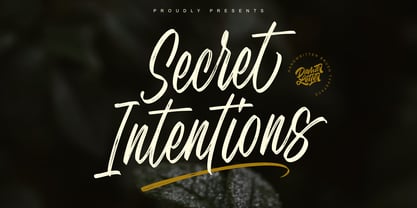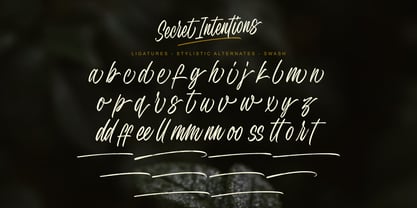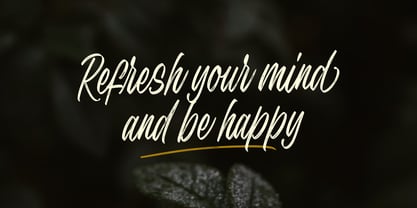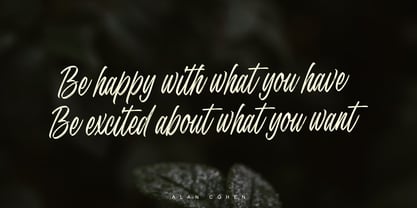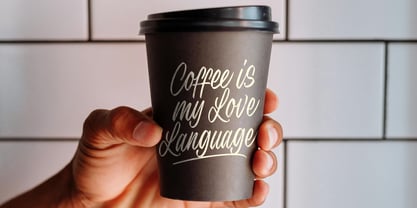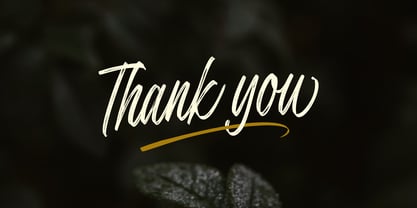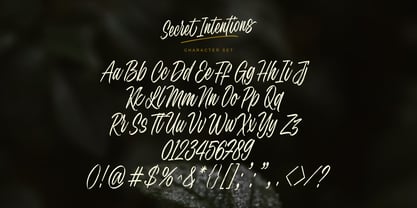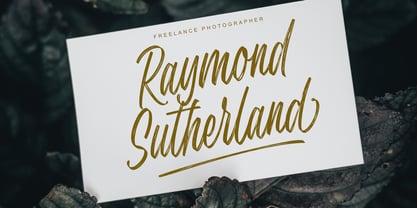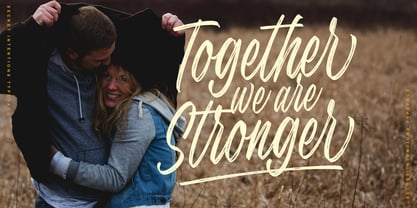
Secret Intentions
by Damarletter
The Secret Intentions Font Family was designed by Ardian Nuvianto and published by Damarletter. Secret Intentions contains 1 styles. More about this family
Secret Intentions is a stylish and expressive handwritten brush font that captures the raw beauty of hand-drawn lettering. With its sweeping strokes and organic texture, this font exudes emotion, personality, and authenticity.
Perfect for creative projects that demand a personal touch, Secret Intentions brings a sense of spontaneity and warmth to everything from branding and social media graphics to wedding invitations and product packaging.
Features:
-Handcrafted brush script style
-Natural flow with varied stroke widths
-Uppercase & lowercase characters
-swash
-stylistic alternates
-ligatures
-Numbers & punctuation
-Multilingual support
Ideal for: logos, posters, fashion, photography, blogs, Instagram quotes, and more.
Designers: Ardian Nuvianto
Foundry: Damarletter